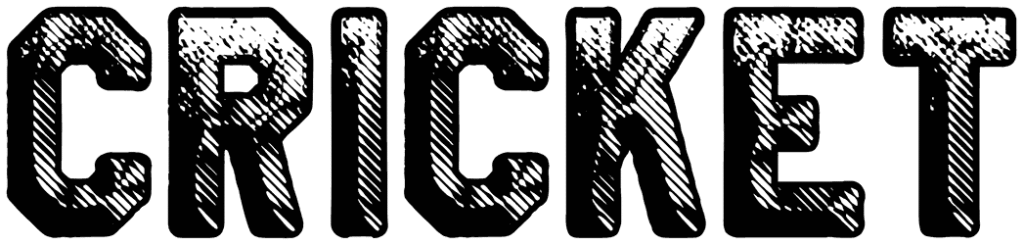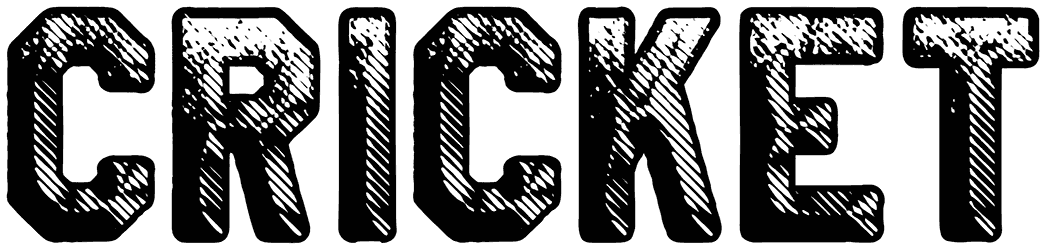
Cricket Font
Let’s use this distinct military font for your paintball game poster or the like and hook a lot of viewers. This sports font has strong characters that are going to be amazing for bold words, but consider that it doesn’t support lowercase letters, numbers, and punctuation marks. Put the Cricket font on your intended design and enjoy the unique showcase.
Six overlapping fonts.